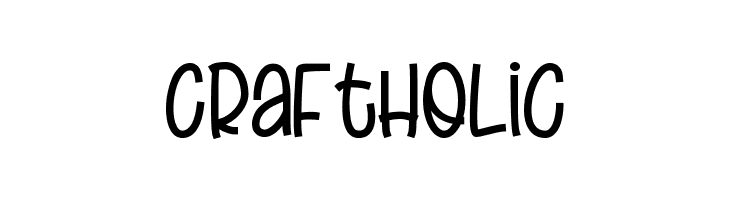
A playful, hand-drawn font with a whimsical and casual style.
A playful and whimsical font with rounded, flowing letterforms.
A playful, spooky font with quirky, decorative elements ideal for Halloween themes.
A lively, cursive font with a natural, handwritten feel and elegant loops.
A distressed, bold font with a grunge style and narrow characters.
An elegant script font with flowing, cursive lines and ornate uppercase letters.
A bold, geometric font with a futuristic and industrial design.
A flowing, cursive script font with elegant, interconnected strokes.
An elegant and sophisticated script font with intricate flourishes.
A bold, dotted script font with a playful and dynamic style.